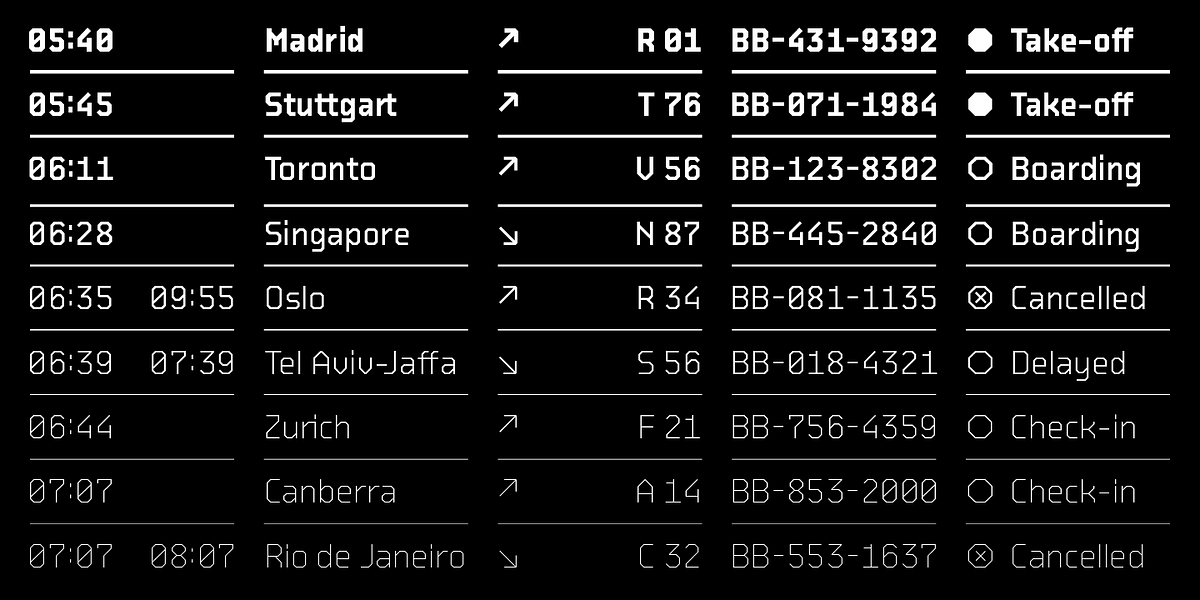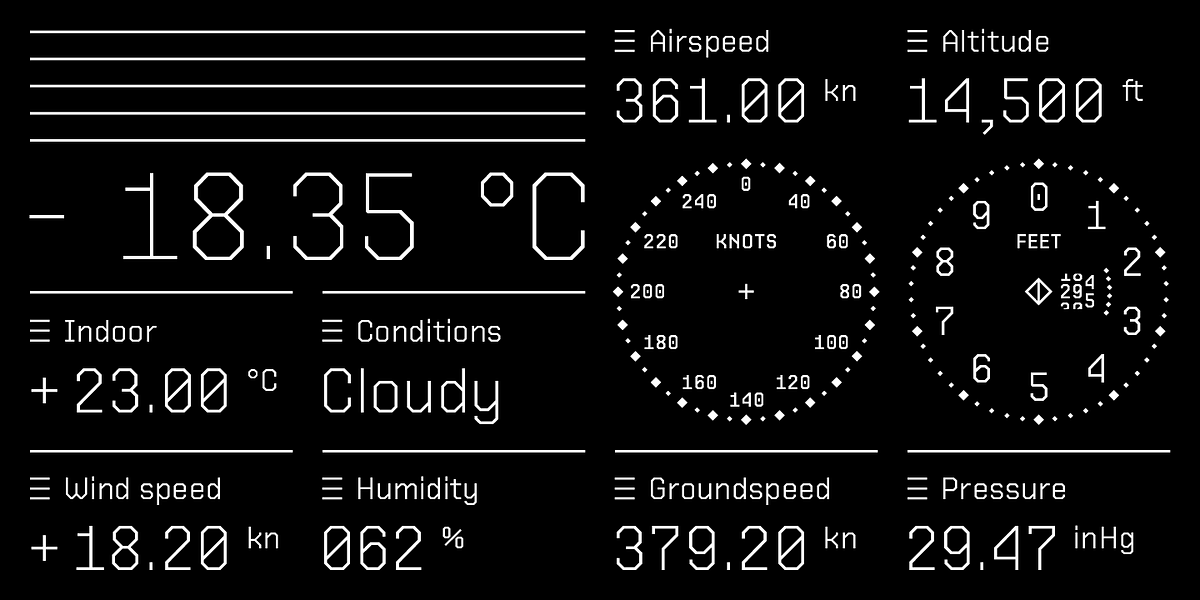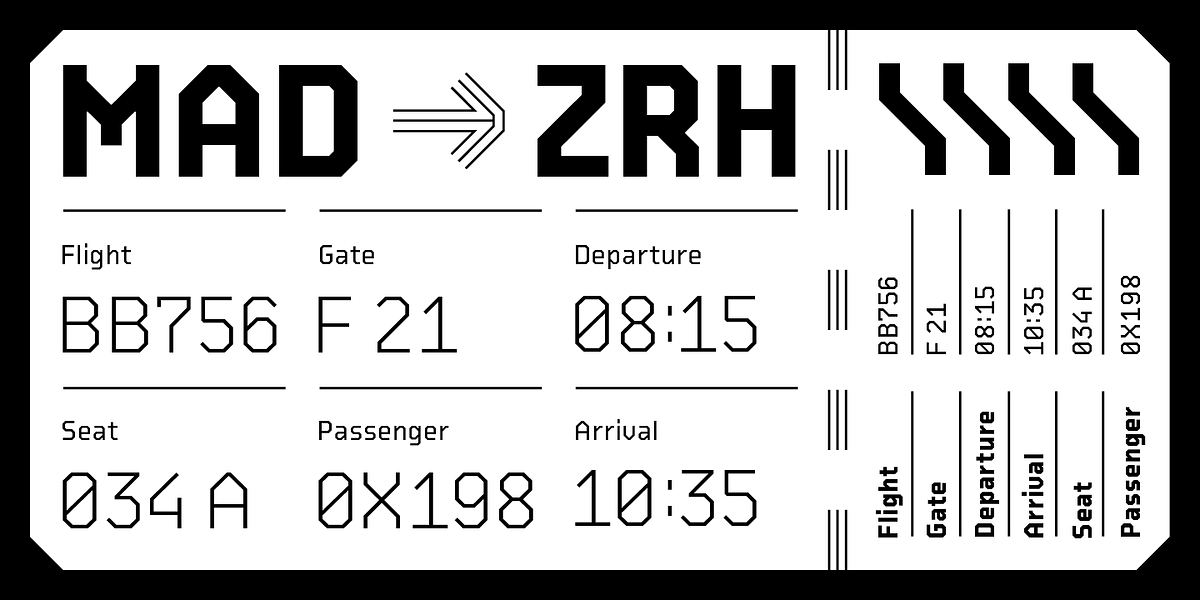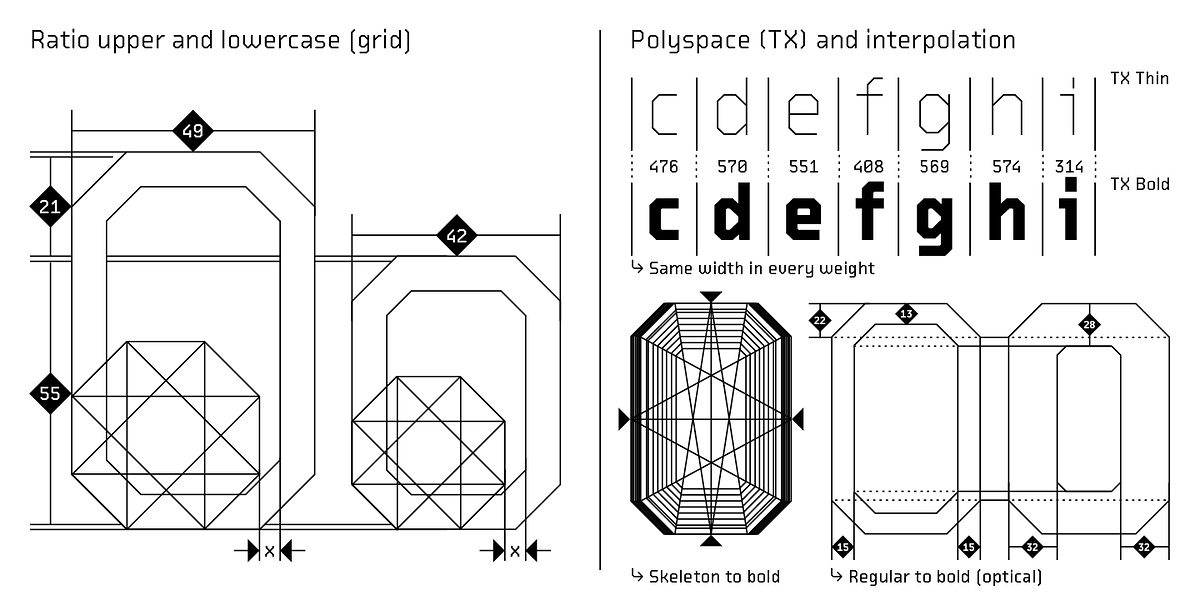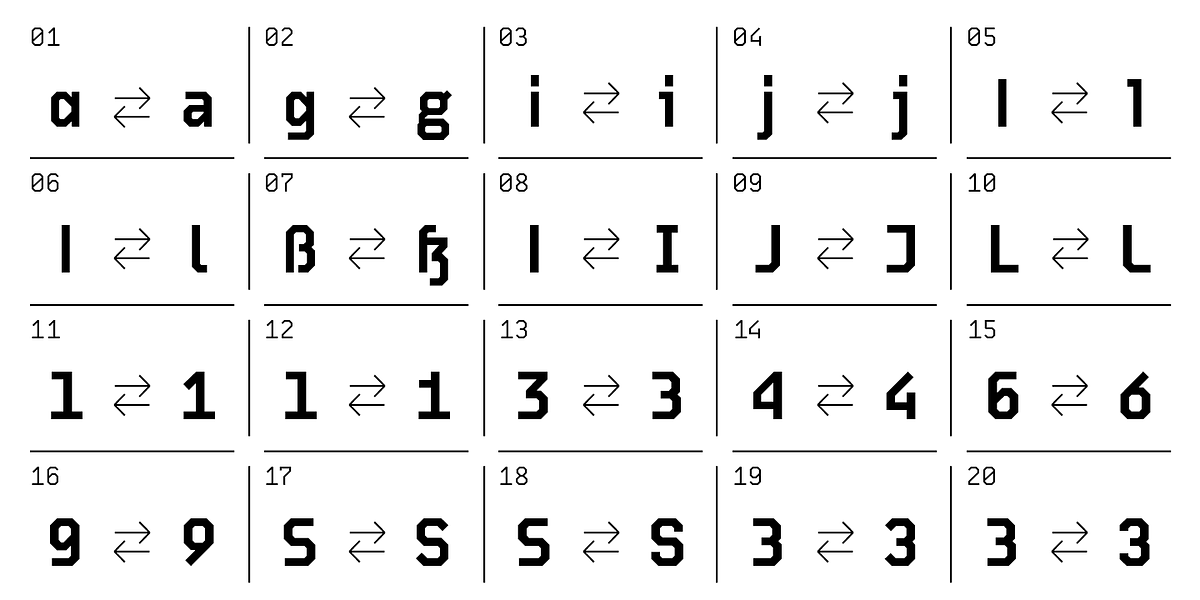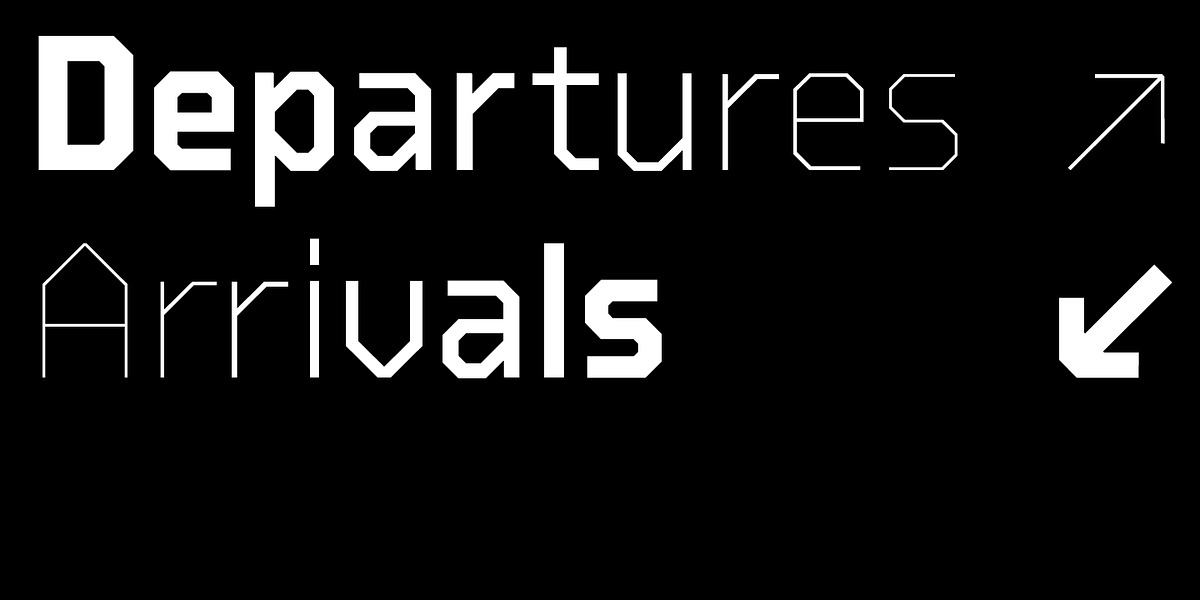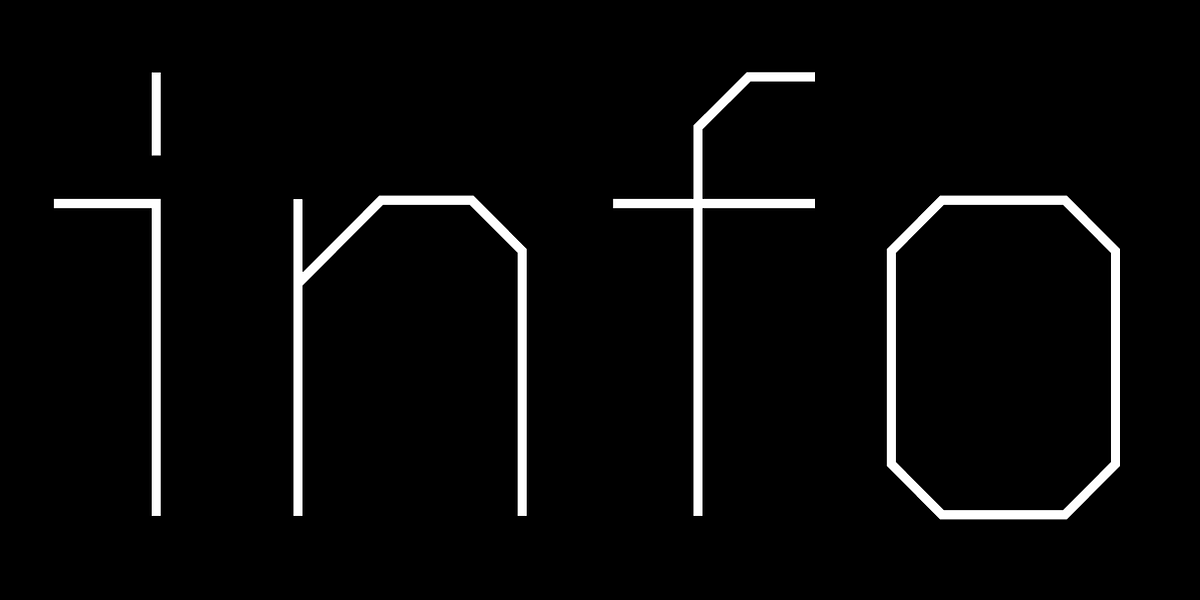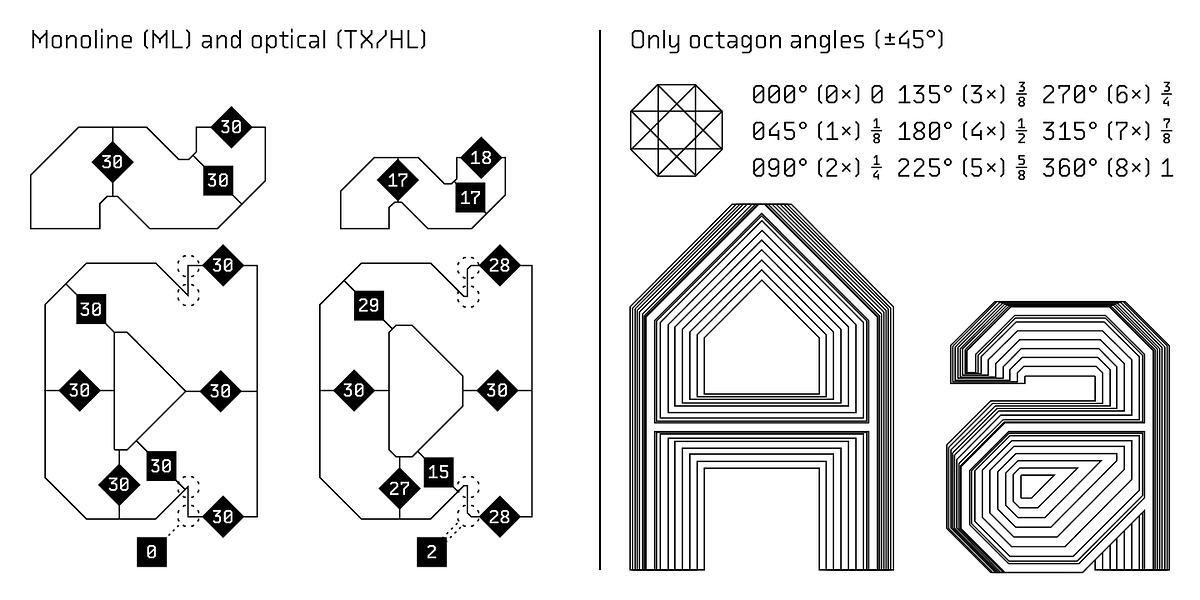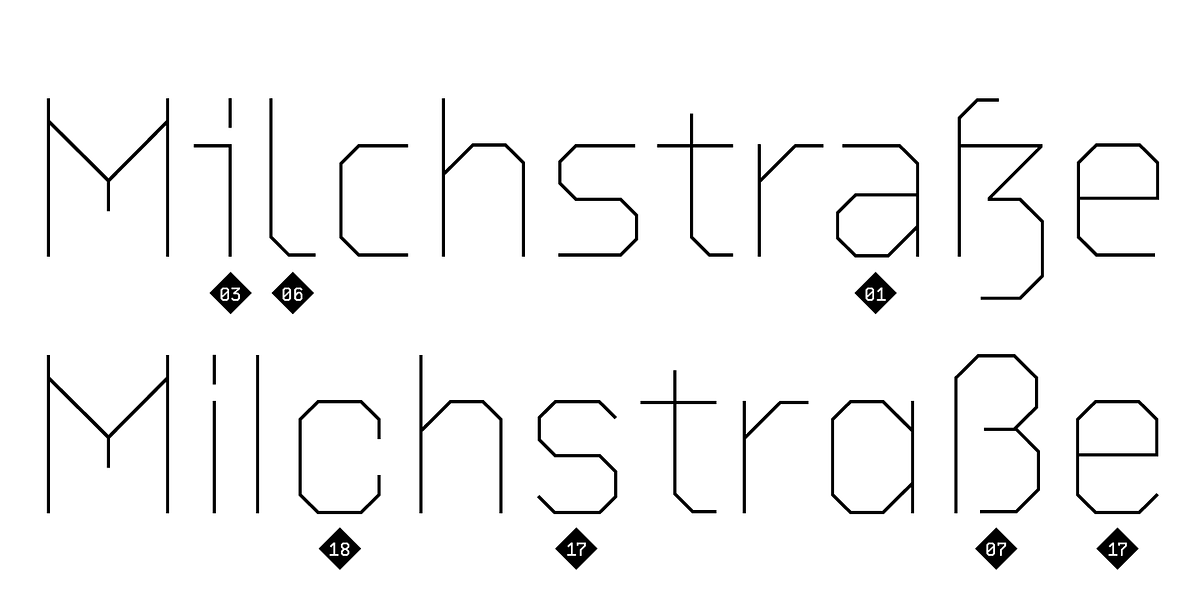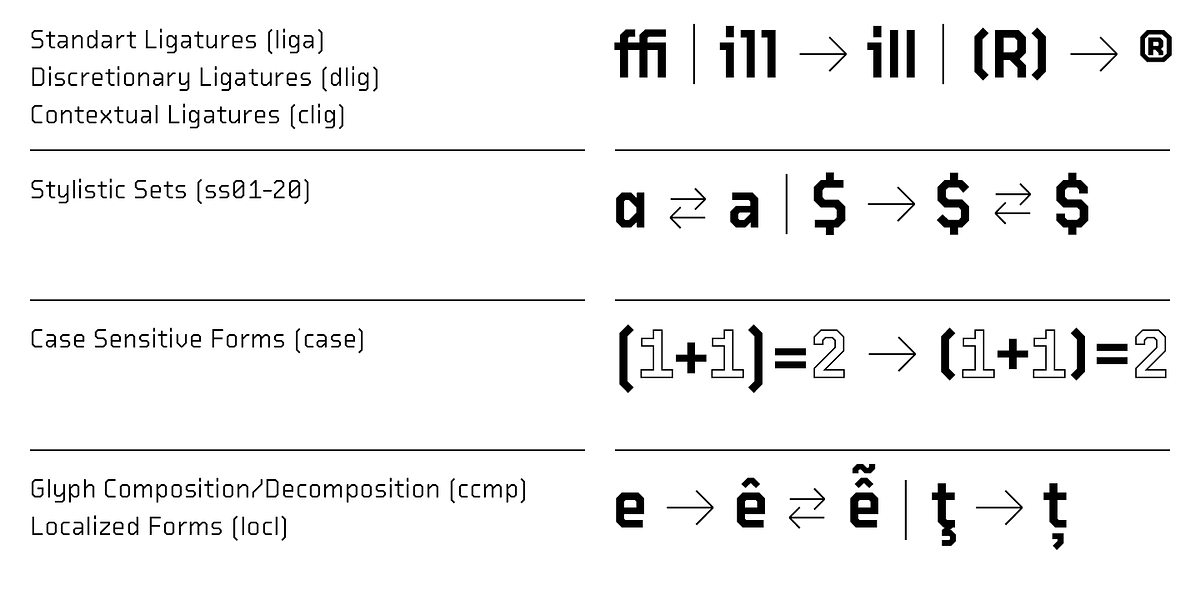
BB Strata™ Pro
BB Strata™ (Pro) is a unique geometric sans-serif typeface characterized by its octagonal angles. It boasts a wide range of weights and stylistic variations, making it suitable for various display applications like headlines, branding, and signage. The font's design draws inspiration from scientific investigations, lending it a modern and intellectual feel.